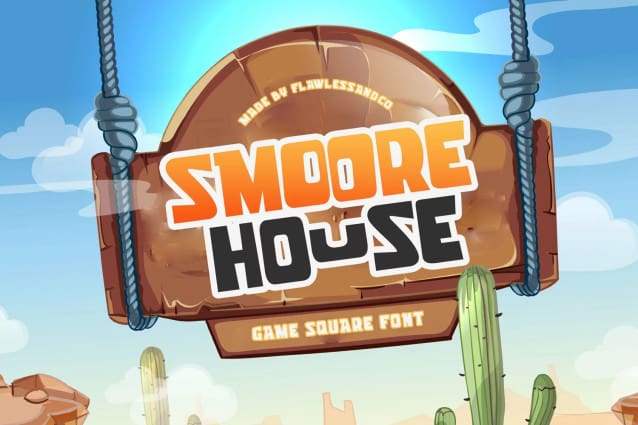
Smoore House Font
Smoore House Font, a bold and dynamic square font designed to elevate your gaming experience to new heights. With its sharp edges and futuristic vibe, SmooreHouse brings a touch of excitement and energy to every gaming interface.